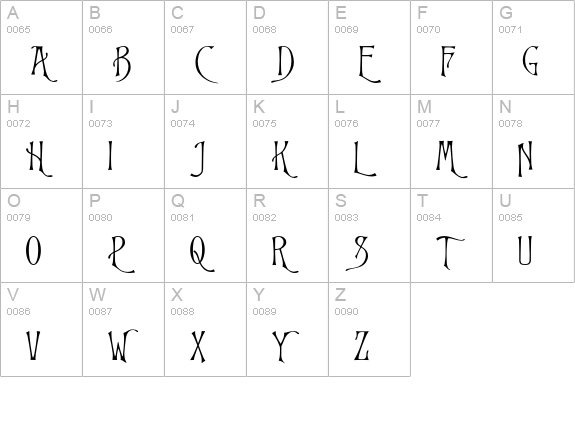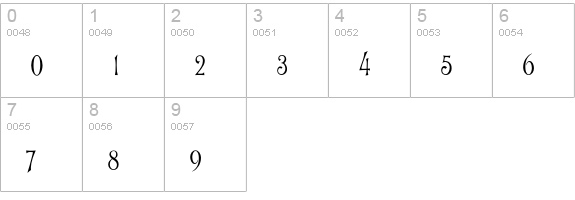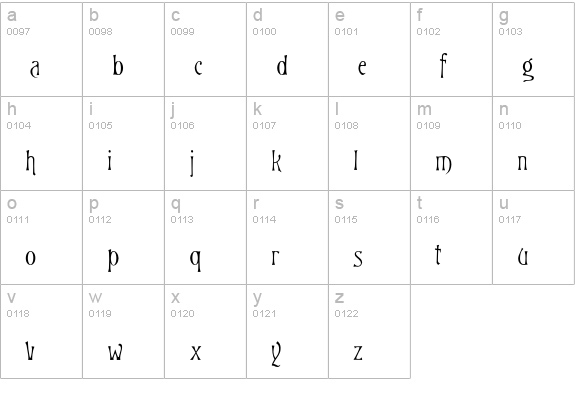
P22Victorian-Swash Font Details
P22Victorian-Swash font is a stunningly elegant and ornate typeface that embodies the essence of the Victorian era. With its intricate swirls, elaborate curves, and delicate details, this font transports you back to a time of opulence and grandeur. Designed by P22 Type Foundry, P22Victorian-Swash is a perfect choice for creating projects that require a touch of vintage charm and sophistication. Whether you're designing invitations, logos, posters, or any other creative project, this font adds a touch of timeless elegance. The beauty of P22Victorian-Swash font lies not only in its exquisite design but also in its versatility. It comes in a wide range of weights and styles, allowing you to customize and personalize your designs to suit your needs. From delicate and graceful to bold and impactful, this font offers endless possibilities. What makes P22Victorian-Swash even more remarkable is that it is available for free. Yes, you read that right – this stunning font can be downloaded for free at FontsMarket.com. You can add this font to your collection without spending a penny, making it an excellent choice for designers, artists, and creatives on a budget. So, why wait? Discover the beauty and elegance of P22Victorian-Swash font and elevate your designs to new heights. Download it for free at FontsMarket.com and let your creativity run wild.